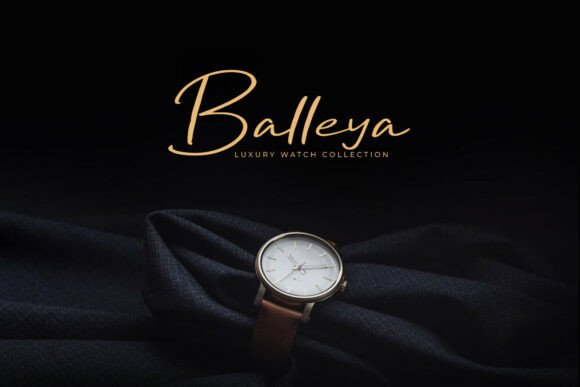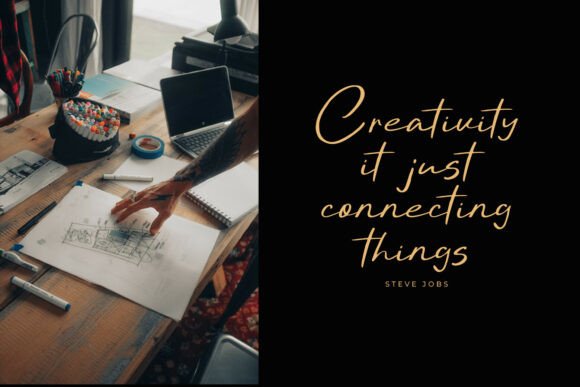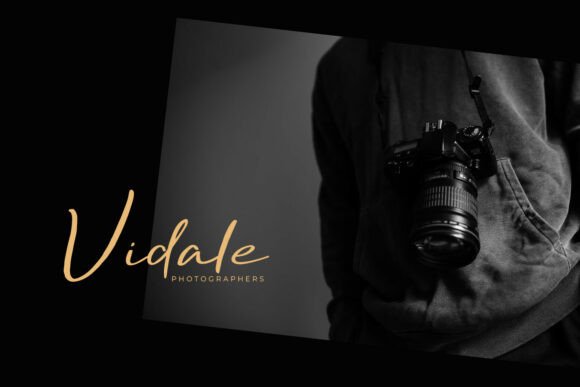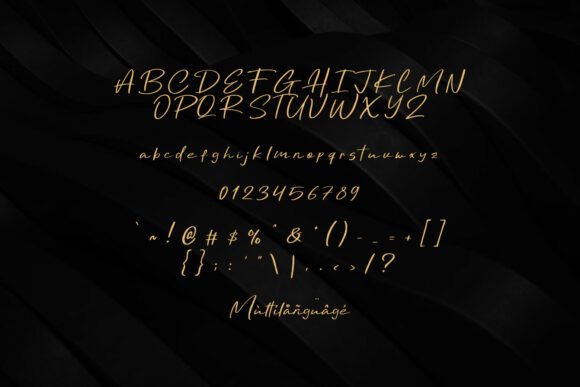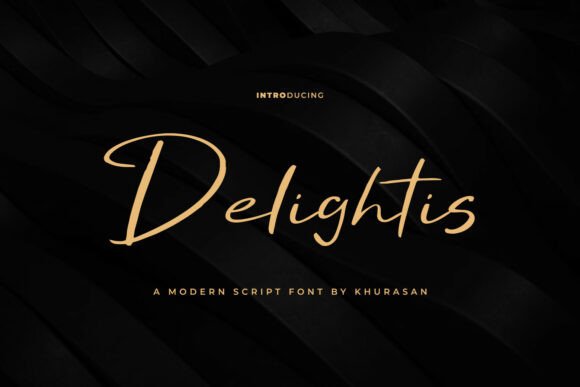
Introducing Delightis Font: Elevate Your Designs with Elegance and Sophistication
Are you on the hunt for a font that exudes cleanliness, style, and modernity? Look no further than Delightis Font, a beautiful script handwriting font that is perfect for a wide range of design projects. Whether you’re creating posters, logos, magazines, book covers, banners, or any other visual material, Delightis is the ideal choice to add a touch of elegance and sophistication.
What Makes Delightis Font Stand Out?
Delightis Font is a clean, stylish, modern, and elegant script handwriting font that is designed to make your designs stand out. Its unique and flowing script style gives it a distinctive look that is sure to capture the attention of your audience. The font’s clean lines and stylish curves make it perfect for creating visually appealing designs that are both modern and sophisticated.
Delightis Font is incredibly versatile and can be used for a wide range of design projects. Here are some of the many ways you can use this amazing font:
• Posters: Create eye-catching posters that grab attention with Delightis Font. Its elegant and modern style makes it perfect for promoting events, products, or services.
• Logos: Use Delightis Font to create stunning logos that reflect your brand’s personality and style. Its unique script style will help your logo stand out from the crowd.
• Magazines: Add a touch of elegance to your magazine designs with Delightis Font. Its clean and stylish lines make it perfect for headings, subheadings, and body text.
• Book Covers: Create captivating book covers that grab attention with Delightis Font. Its modern and sophisticated style makes it perfect for fiction and non-fiction books alike.
• Banners: Use Delightis Font to create stunning banners that showcase your message in style. Its flowing script style will add a touch of elegance to your banners.
Why Choose Delightis Font?
So, why should you choose Delightis Font for your design projects? Here are just a few reasons:
• Elegance and Sophistication: Delightis Font exudes elegance and sophistication, making it perfect for designs that require a touch of class.
• Versatility: Delightis Font can be used for a wide range of design projects, from posters and logos to magazines and book covers.
• Easy to Read: Delightis Font is incredibly easy to read, making it perfect for body text and headings.
• Unique Style: Delightis Font has a unique script style that will add a touch of personality to your designs.
In conclusion, Delightis Font is an amazing script handwriting font that is perfect for designers and crafters who want to add a touch of elegance and sophistication to their designs. Its clean lines, stylish curves, and unique script style make it perfect for a wide range of design projects. Whether you’re creating posters, logos, magazines, book covers, or banners, Delightis Font is the ideal choice. So, why wait? Get Delightis Font today and start creating stunning designs that stand out!